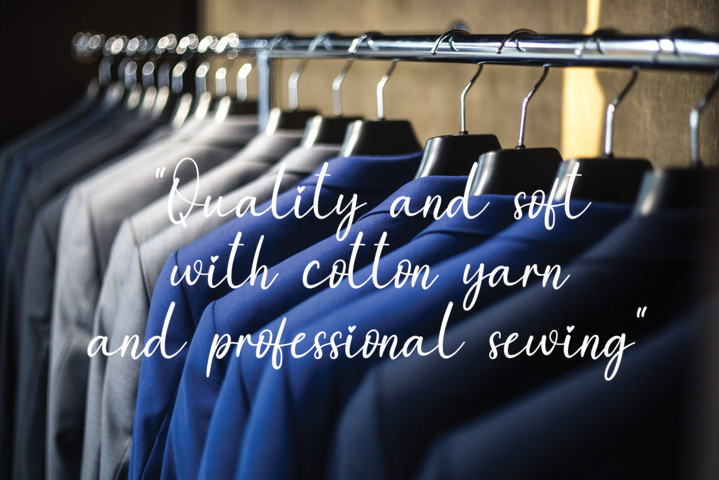
Maida Valley Script Font
Maida Valley is a beautiful and flowing handwritten font. It is PUA encoded which means you can access all of the glyphs and swashes with ease! Maida Valley can be added to a variety of designs, both formal and informal, such as wedding invitations, birthday cards, logos and so much more.